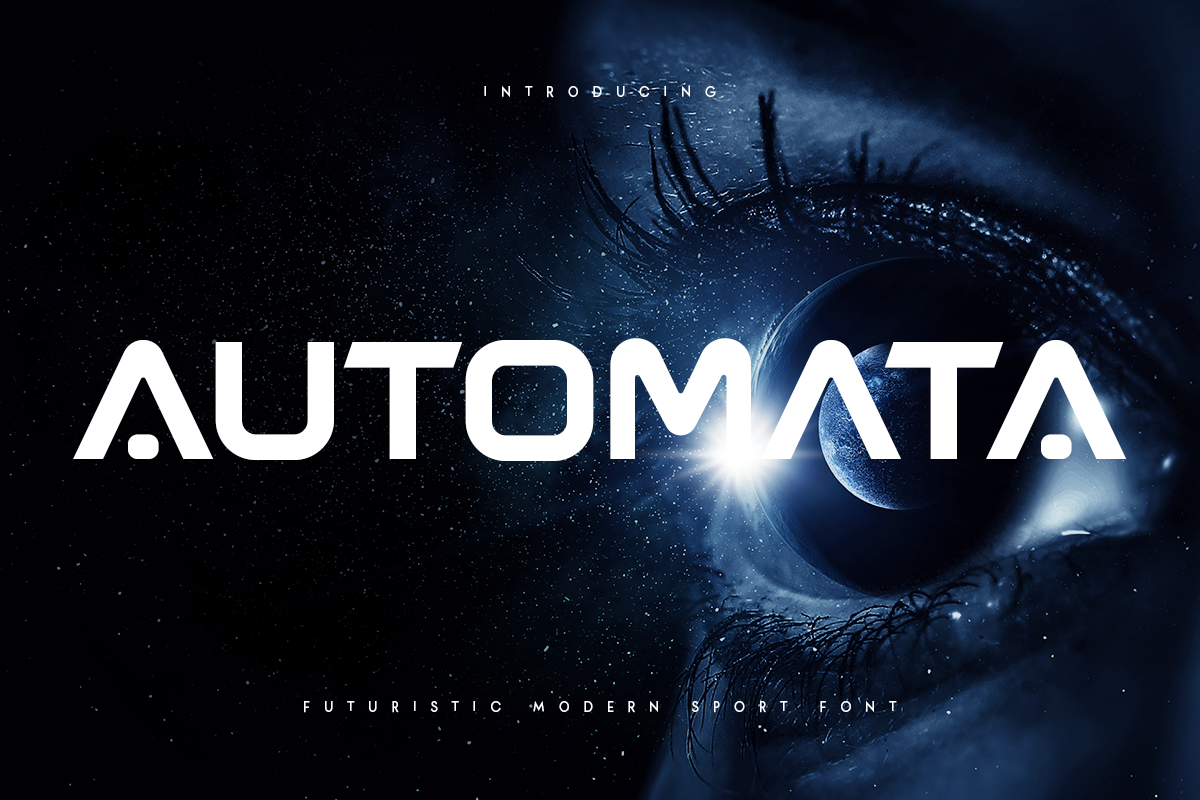
Automata - Futuristic Sport Font
Create bold, futuristic designs with AUTOMATA - the sci-fi sport font built for modern technology branding. AUTOMATA delivers cutting-edge typography specifically crafted for sci-fi, modern, and standout design projects. This futuristic sport font features extra alternative styles that elevate your designs with a distinctly modern, technological edge. Perfect for sport headlines, technology branding, action-packed designs, and sci-fi themed projects. The bold styling and contemporary feel make i...